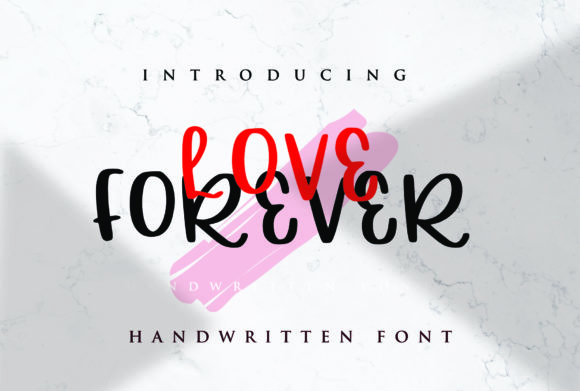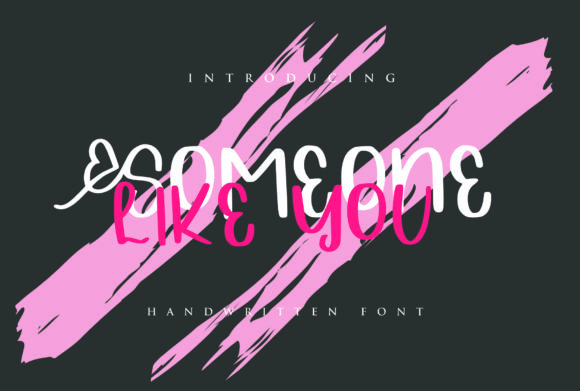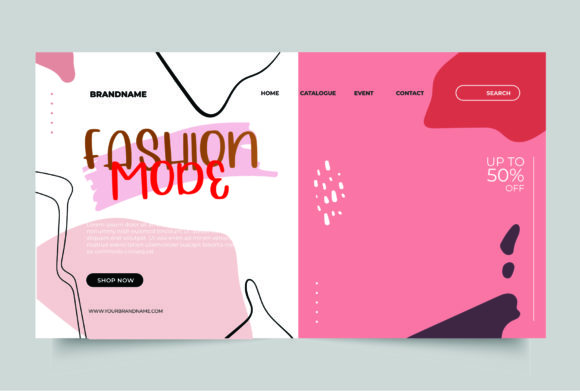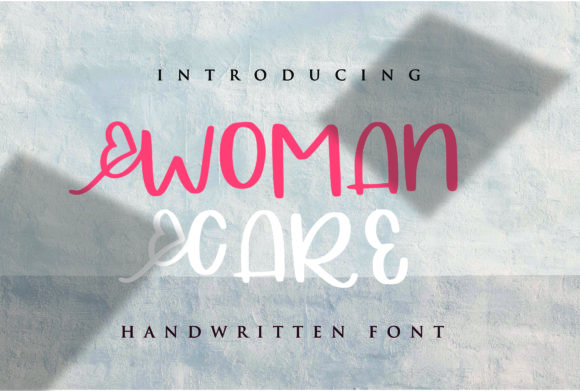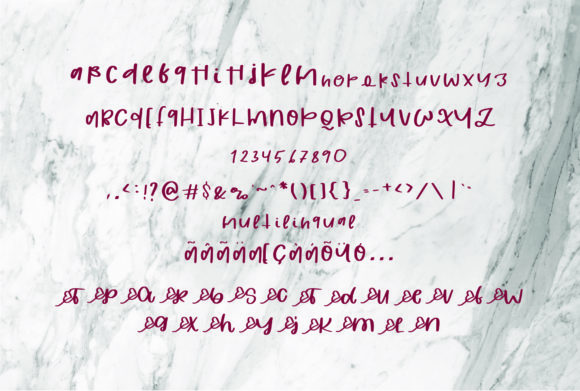
Love Forever Font
About Love Forever Font
Love Forever is a cute and simple handwritten font. Romantic and dreamy, this font is the perfect choice for each of your love related designs!